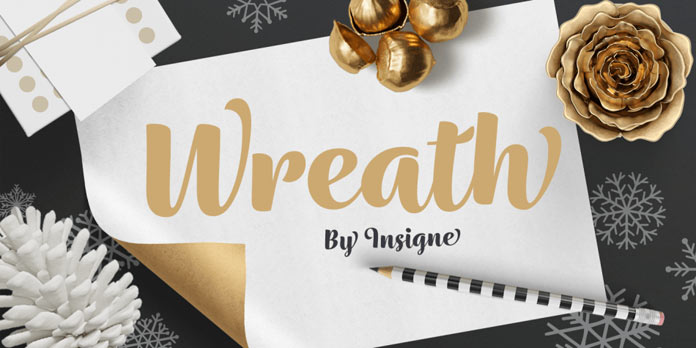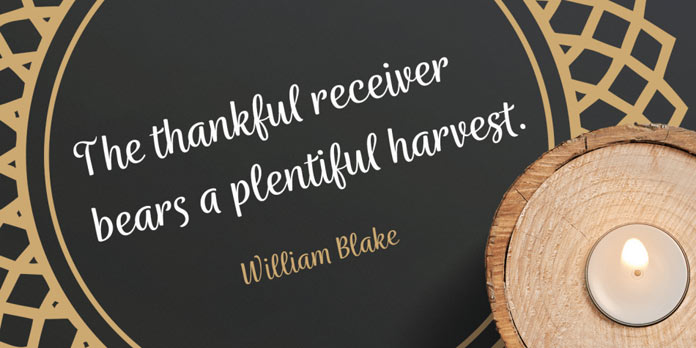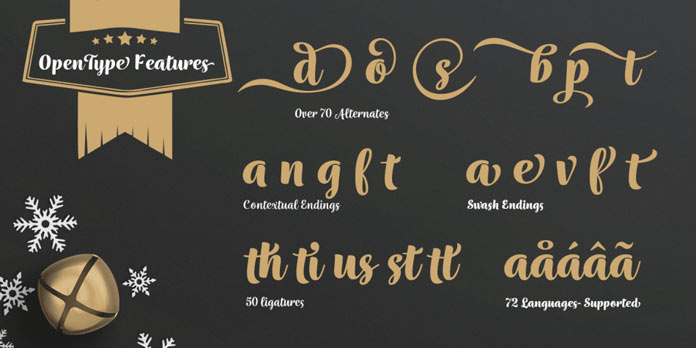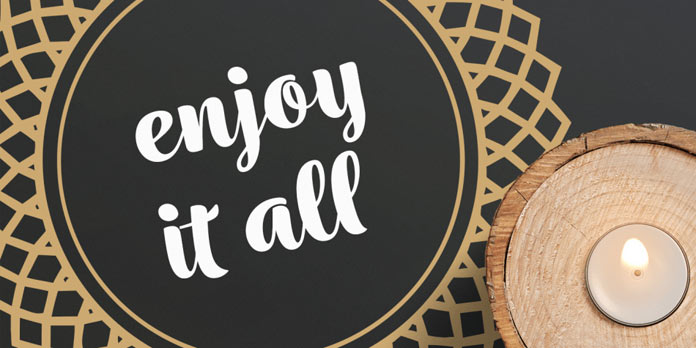
Wreath, a festive font family designed by Jeremy Dooley of foundry Insigne.
Not just for Christmas, the Wreath font family is a great choice for a variety of festive occasions and everything that needs a friendly script typeface. Drawn by Jeremy Dooley with a pointed brush, the family comprises 21 styles including 5 weights ranging from thin to bold, different textured versions, and an extensive set of ornaments. Furthermore, the family is equipped with lots of alternative characters to give your design a more natural handmade look and feel. Get more information below the image or click on the following link.
The numerous alternates include a nice variety of ending characters of the lowercases to give your typographic work a much better handwritten appearance. The wide range of OpenType features also includes a set of ligatures to extend this handwritten look. Each font comprises more than 650 glyphs. You can use the Wreath font family to create beautiful invitations, gift labels, posters, and much more. To know more about all details and features of this lovely script family, please follow the link below.